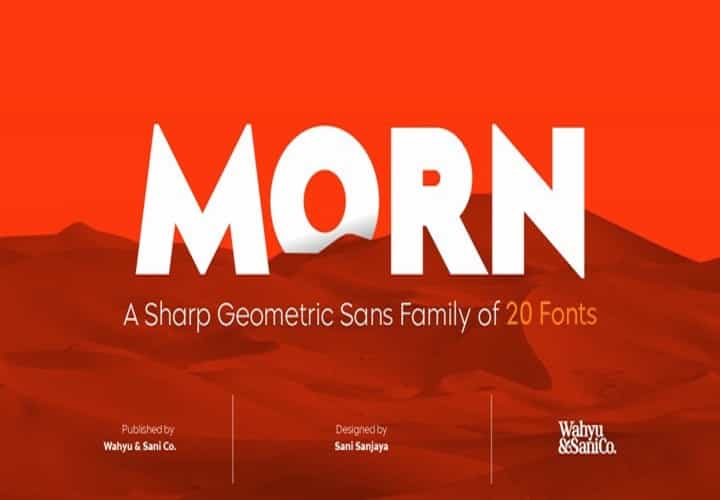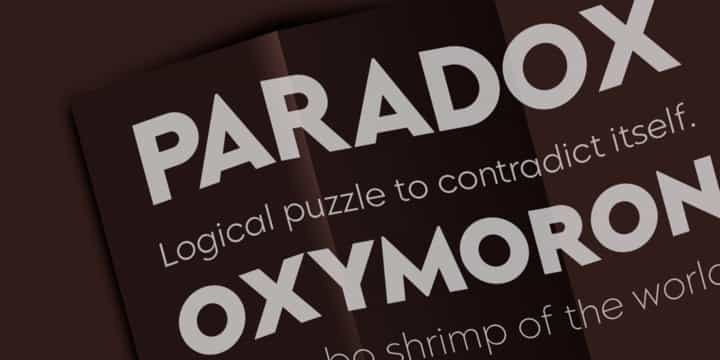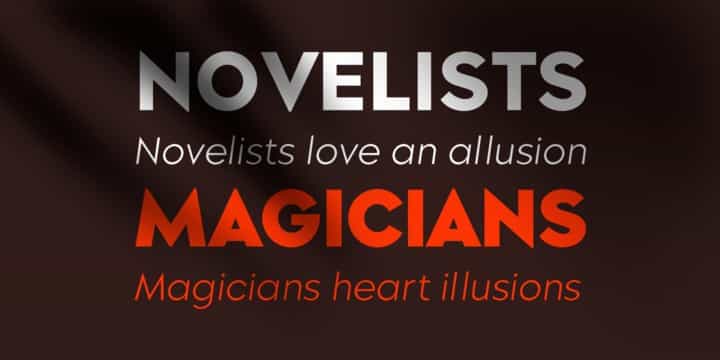
Morn is a sharp geometric sans font with the roman proportion. Each character is derived from a rectangle (square), a circle and a triangle, with only minor modifications needed to make them visually equivalent.